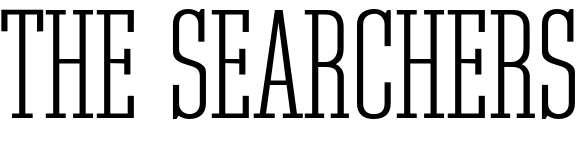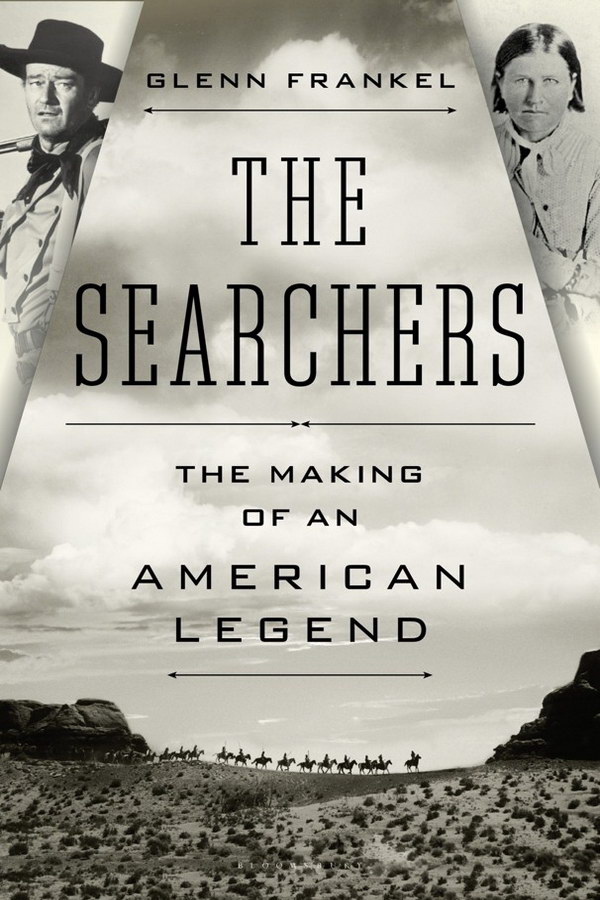
The Searchers Font
BookThe Searchers: The Making of an American Legend is a novel by Alan LeMay, first published in 1954, which tells the story of a man's years-long search for his niece, who was kidnapped by Comanches.
On the book cover, the font used bears a resemblance to PL Tower Condensed, a commercial font designed by Morris Fuller Benton in 1934. Further information about the font can be viewed here.